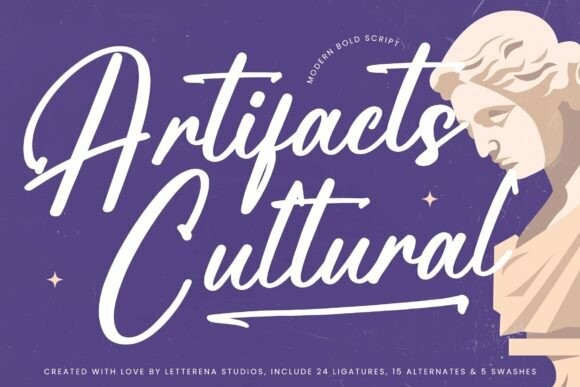
Artifacts Cultural Font
Artifacts Cultural Font – Modern Bold Script , from Letterena, is a Luxury Script font, suitable for any projects such as: logos, branding projects, homeware designs, product packaging, mugs, quotes, posters, shopping bags, t-shirts, book covers, name card, invitation cards, greeting cards, label, photography, watermark, special events, and all your other luxury and beautiful projects that need a Luxury Script taste.